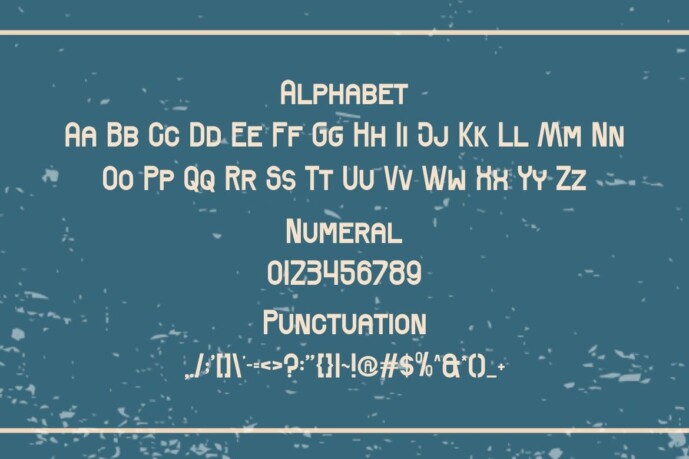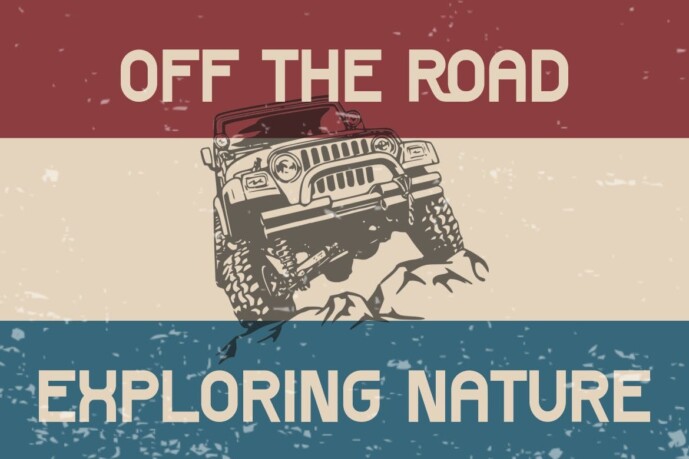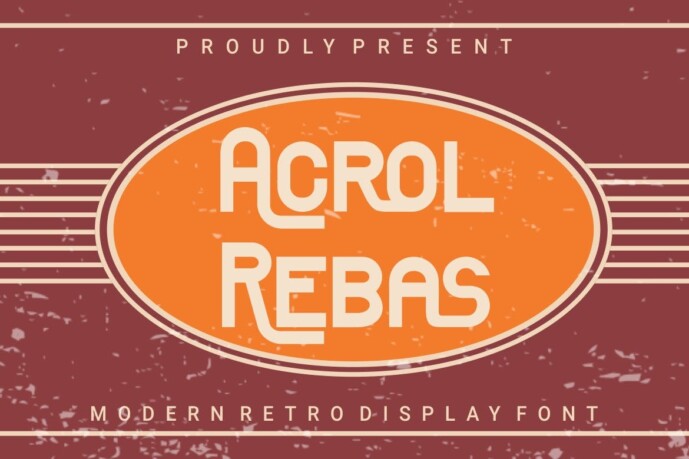
AcrolRebas Font
Designer: Lovina_design
ACrolRebas Font – Modern Retro Display Font is a modern and authentic font. Perfect for professional needs and product branding, this font is suitable for all branding projects such as quotes, logos, blog headers, posters, ribbons, letters, invitations, stationery, etc. Designed to be versatile and flexible, it can be used on a variety of projects and media. Extraordinary in a variety of contexts